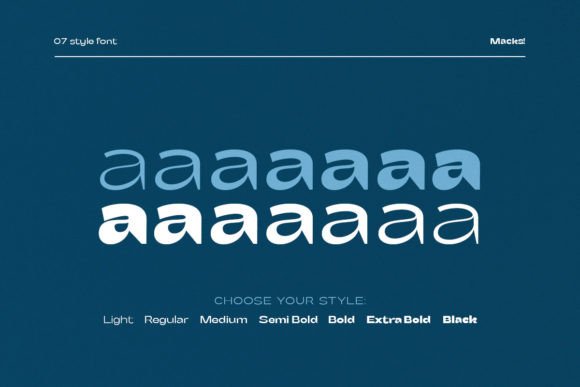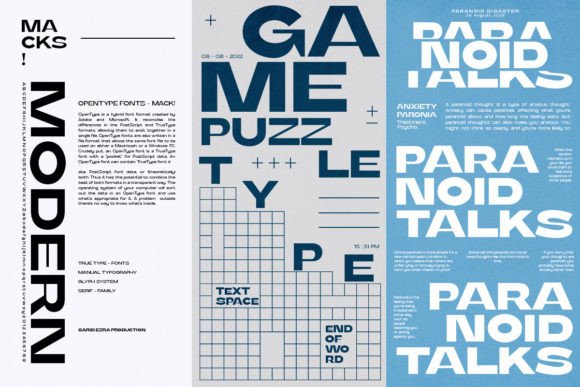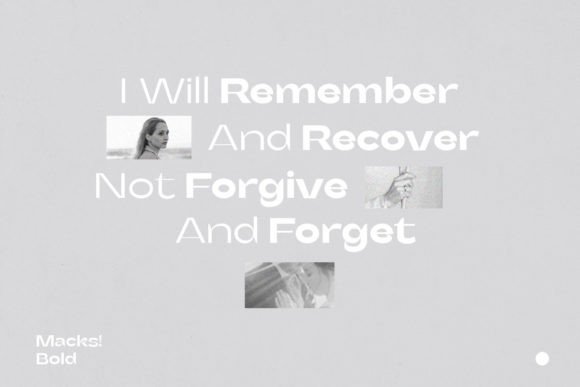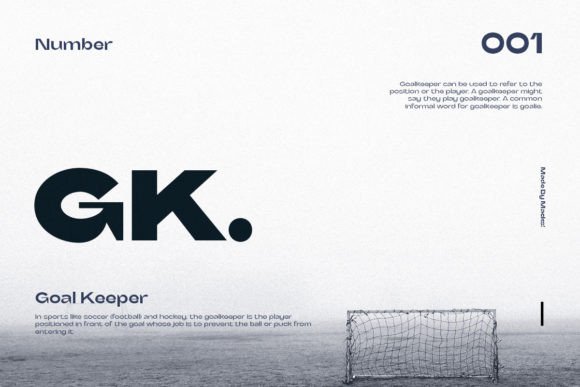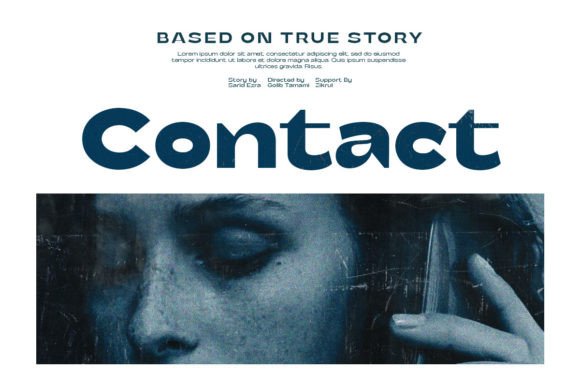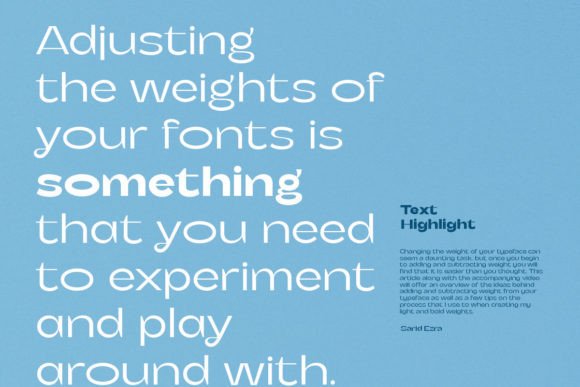
Introduction to Macks Font
Macks is a cool, wide, and bold sans serif font.
Key Features of Macks Font
Why Choose Macks Font?
Macks Font offers exceptional quality and versatility, making it a valuable addition to your design toolkit. Whether you’re creating for personal projects or commercial use, Macks Font delivers professional results.